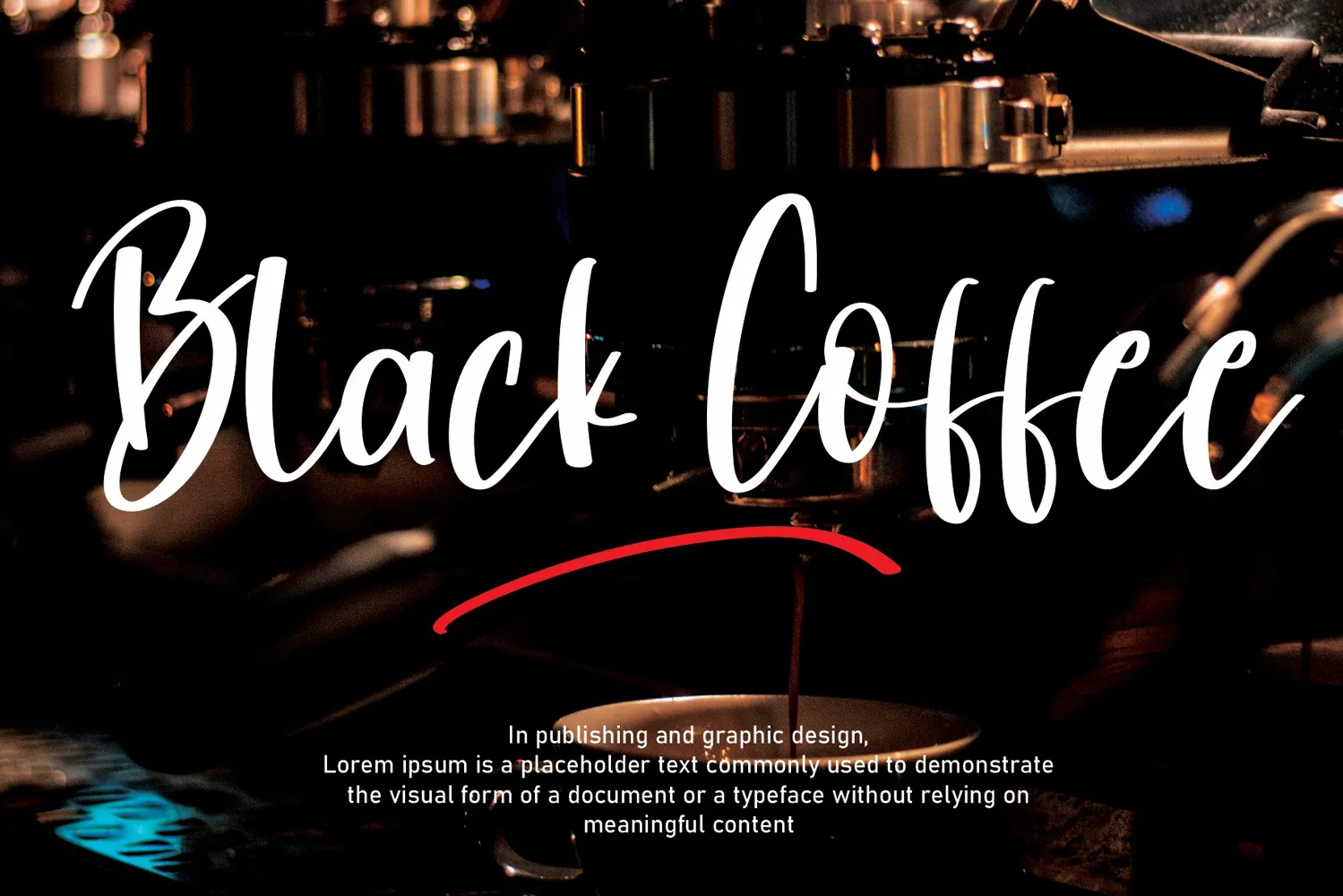
Pink Cream | Script font
Pink Cream Font is a popular and professional script font. It is Modern and elegant, this typeface is made of beautiful, creative strokes.